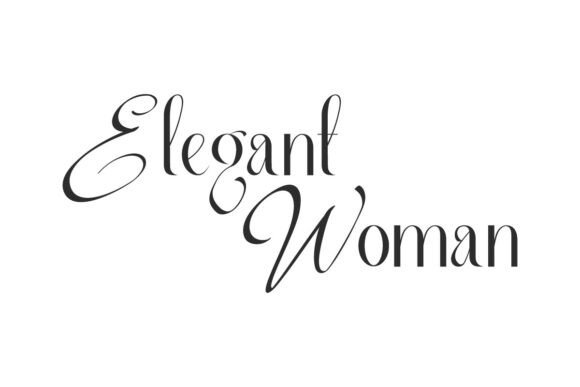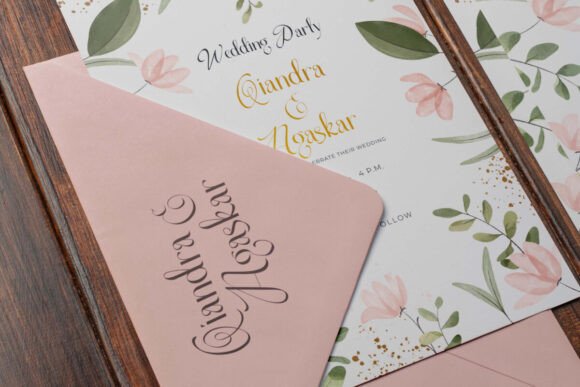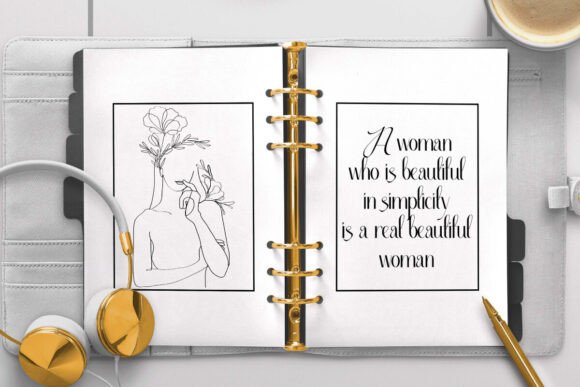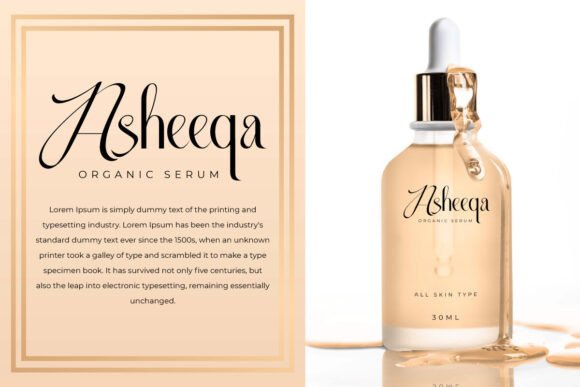
Elegant Woman Font
About the Elegant Woman Font
Let us introduce you to Elegant Woman Font, where timeless design meets modern craftsmanship. Elegant Woman Font is a classy display font with a dazzling shine, perfect for adding a luxurious touch to your designs. It works beautifully for applications like apps, billboards, brand logos, brochures, business cards, catalogs, covers, embossed designs, flyers, headers, invitations, labels, magazine layouts, mockups, packaging, posters, quotes, screen prints, signage, social media posts, stationery, stickers, titles, websites, and many other projects.
Its elegant, slightly stylized forms make it ideal for headlines, logos, and short text blocks where readability isn’t paramount. It shines in applications requiring a touch of luxury, such as high-end packaging, invitations, or branding for cosmetics or fashion. However, its decorative nature makes it unsuitable for body copy or UI elements where legibility is crucial. Avoid using it for lengthy paragraphs or small sizes.
Pairing Elegant Woman with a clean sans-serif like Helvetica Neue for body text creates a strong contrast and balanced design. For a more playful feel, consider pairing it with a rounded geometric sans-serif. A classic serif like Garamond could add sophistication and enhance the luxurious feel, while a script font would add flair, but only in small, carefully considered doses to avoid overwhelming the design.
Elegant Woman exudes sophistication and a timeless quality. Its personality is refined, confident, and subtly glamorous, aligning perfectly with brands projecting luxury, exclusivity, and high-end aesthetics.
Elegant Woman Font Usage Examples
Elegant Woman Font Example